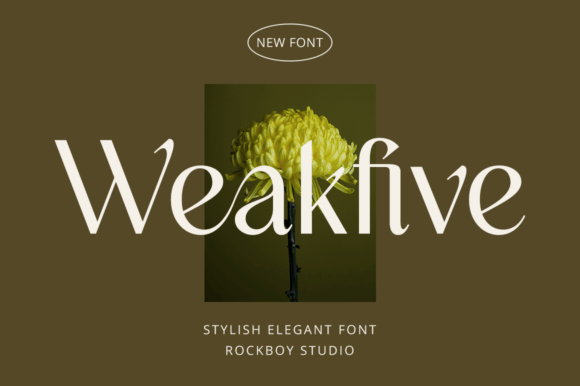
Dare to dive into the extraordinary realm of Weakfive, a serif sensation that exudes charm and originality! Each stroke is meticulously crafted to evoke a sense of sophistication, inspiring you to weave captivating narratives with every design.
Let Weakfive become your trusted companion in the world of typography. Its versatility shines through every curve and line, effortlessly complementing an array of projects. Whether you're crafting eye-catching logos, enchanting invitations, or compelling web pages, Weakfive seamlessly blends with any vision.
Its timeless appeal transcends the boundaries of style, making it the perfect choice for those seeking a touch of elegance and distinction. Experience the joy of expressing yourself through the captivating allure of Weakfive and elevate your creations to new heights!
Embrace the power of Weakfive, and let it unleash the true potential of your imagination. From heartfelt letters to unforgettable branding, this font is your gateway to a world of limitless creative possibilities. Dare to be different, dare to be bold, and let Weakfive guide you on an extraordinary typographic journey.